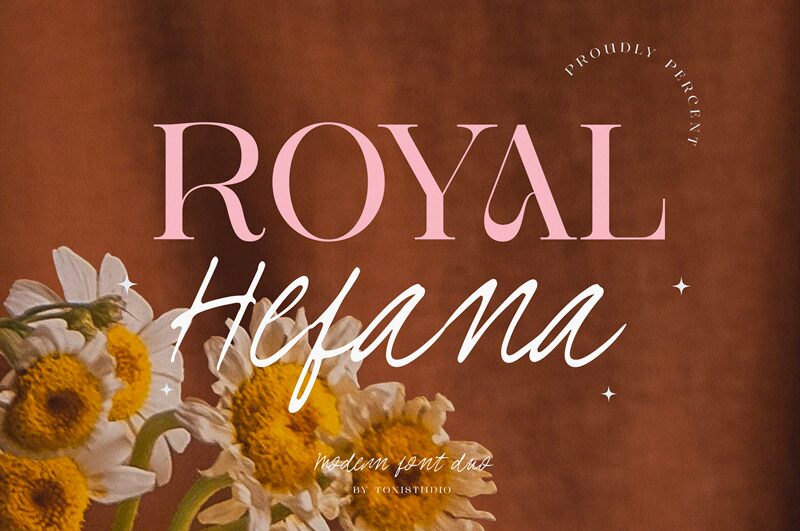
ROYAL Hefana Script Script
ROYAL Hefana Script font is a new creation from ToniStudio with a modern handwritten style. It features flowing letters, with thin light lines that could take any typography project to the next level. ROYAL Hefana brings casual elegance to its readers while keeping an expressive tone and an artistic edge inspired by cursive handwriting.
Use this splendid free handwritten font for a variety of projects, both printable & digital ones. Headline typography, greeting cards, t-shirts, mugs, book covers or back covers, magazine names or headlines are some ideas. Logo design and branding in general would also perfectly fit this lovely script into its styles.